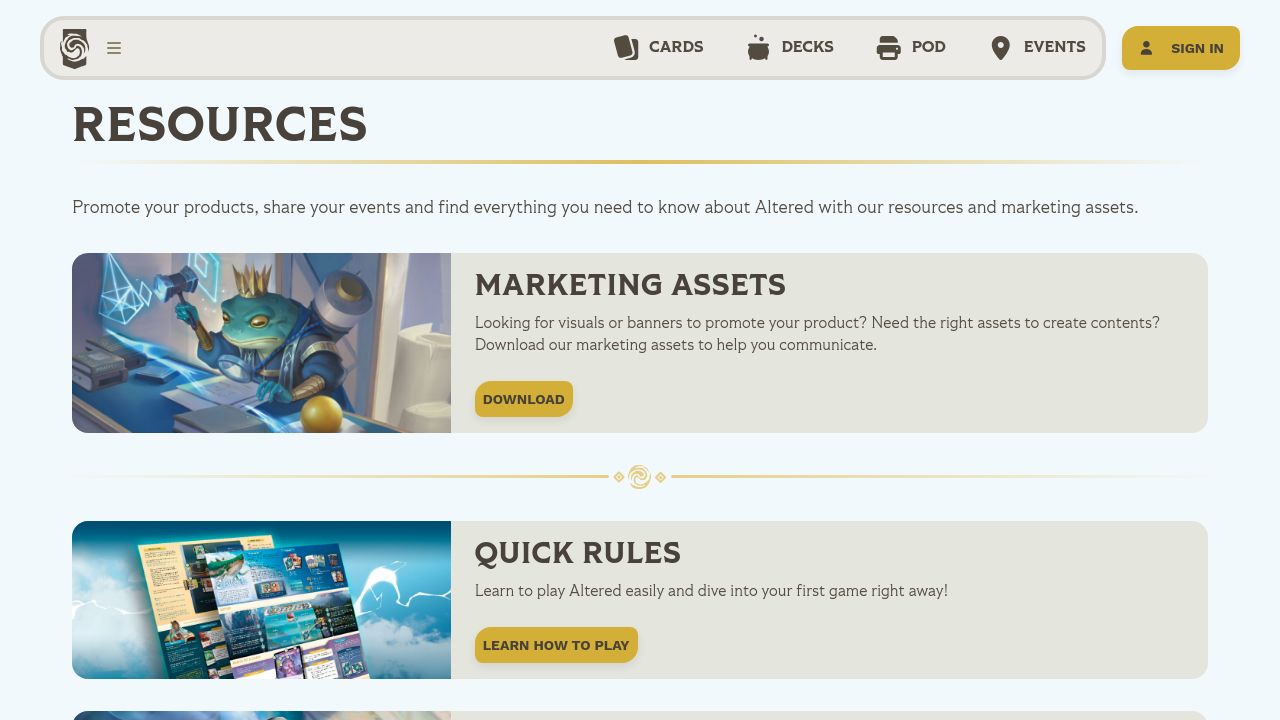
For fans of trading card games (TCG), Altered could very well be a dream come true.
Altered.gg is a vibrant hub for trading card game enthusiasts, where the choice of typography plays a crucial role in shaping its unique identity. The site prominently features Work Sans, conveying a sense of accessibility and clarity, while the inclusion of various Font Awesome styles enhances its visual communication. The use of tiller adds a distinct touch, reflecting the creativity inherent in the TCG community. Together, these fonts create an engaging atmosphere tailored for fans exploring new dimensions in gaming.
The primary fonts used on altered.gg include Work Sans, Font Awesome 7 Brands, Font Awesome 7 Pro, and tiller. These choices reflect the site's focus on trading card games.
Work Sans offers a clean and versatile design, making it suitable for digital content. It contrasts with more decorative fonts, providing clarity and ease of reading, especially in TCG-related contexts.
On altered.gg, Font Awesome is utilized in various styles including 7 Brands and 7 Pro with weights of 400 and 300. This range allows for flexible icon usage throughout the site.